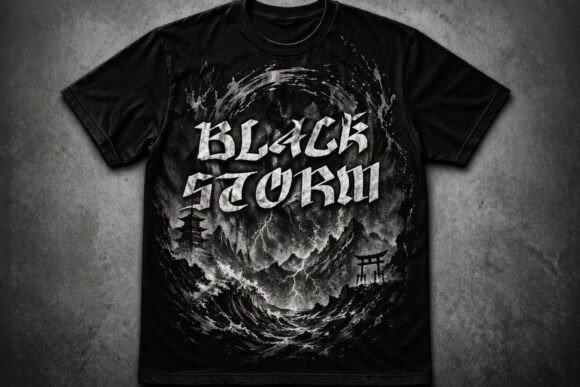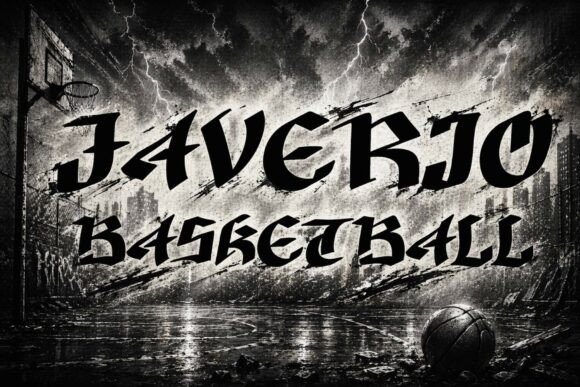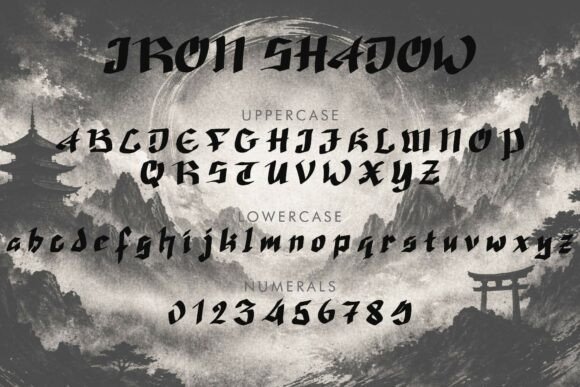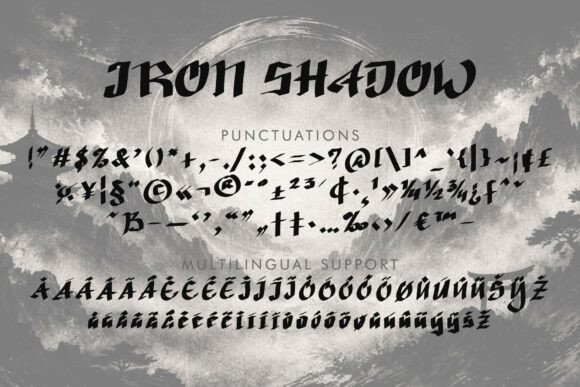
Introduction to Iron Shadow Font
Have you ever been brainstorming a creative project and suddenly, the perfect font pops into your mind, setting the tone for your entire design? For many designers, that moment of clarity is what makes all the difference between a mediocre and a mesmerizing visual identity. It happened to me once when I stumbled upon the Iron Shadow Font, a modern and elegant blackletter font that has been a game-changer for my design projects ever since.
The Iron Shadow Font is a versatile design resource that offers a wide range of applications, from banners and branding to social media and murals. Its high-quality, transparent background makes it perfect for creating eye-catching graphics with a seamless blend of text and background. With its free download option, designers can easily integrate this font into their creative projects, elevating their designs to the next level.
Key Features of Iron Shadow Font
- High-quality design resource with a unique, edgy aesthetic, perfect for creative projects.
- Features a transparent background, allowing for easy layering and composition in your design.
- Supports resolutions up to 300 DPI, ensuring crisp and clear rendering in high-resolution designs.
- Designed to be highly legible, even at small font sizes, making it ideal for titles, headings, and other display text.
Honest Review: Iron Shadow Font
I recently had the opportunity to work with the Iron Shadow Font, and I must say, it’s been a game-changer for my creative projects. As a designer, I’m always on the lookout for high-quality design resources that can help me elevate my work, and this font definitely delivers.
What works well with the Iron Shadow Font is its versatility. I’ve used it for a variety of projects, from logos to brochures, and it’s always looked sharp and professional. The font’s sleek, modern design makes it perfect for any project that requires a touch of sophistication.
Some of the key features that I love about the Iron Shadow Font include:
- ✨ High-quality design that looks great on both light and dark backgrounds
- ✨ Transparent background option, making it easy to customize and combine with other design elements
- ⚠️ Limited font sizes and styles, which may not be ideal for complex projects
- ⚠️ Not suitable for use on very small or large scales, which can affect readability
Overall, I’m really impressed with the Iron Shadow Font. While it may have a few limitations, its high-quality design and versatility make it a valuable addition to any designer’s toolkit.
How to Use Iron Shadow Font
The Iron Shadow Font is a high-quality design resource that offers a sleek and modern aesthetic, perfect for any creative project. This font features a transparent background, making it easy to use in various design contexts.
Tips for Getting the Most Out of Iron Shadow Font
To get the most out of the Iron Shadow Font, try using it in combination with other design elements, such as bold colors and clean lines.
The Iron Shadow Font is ideal for a variety of design projects, including:
Business cards and letterheads
Brochures and flyers